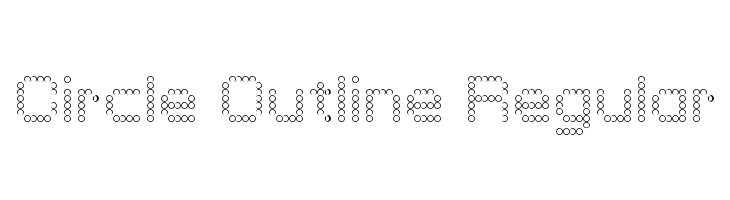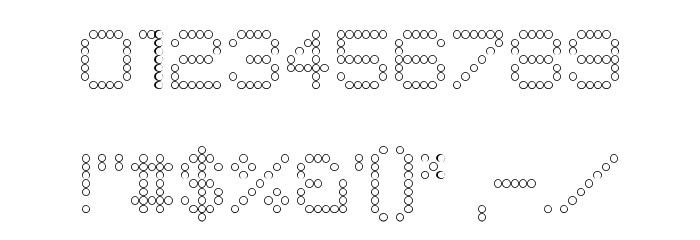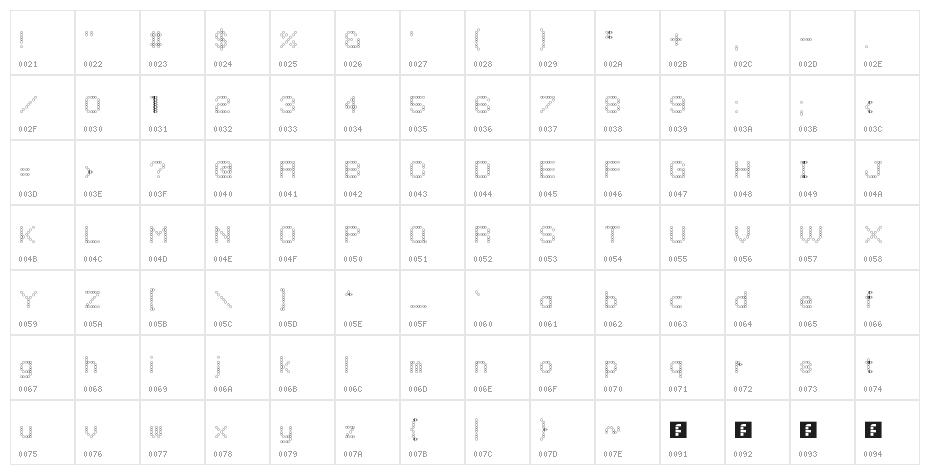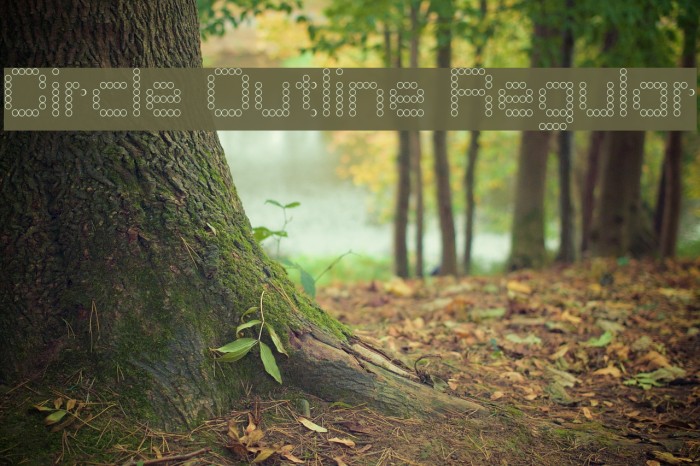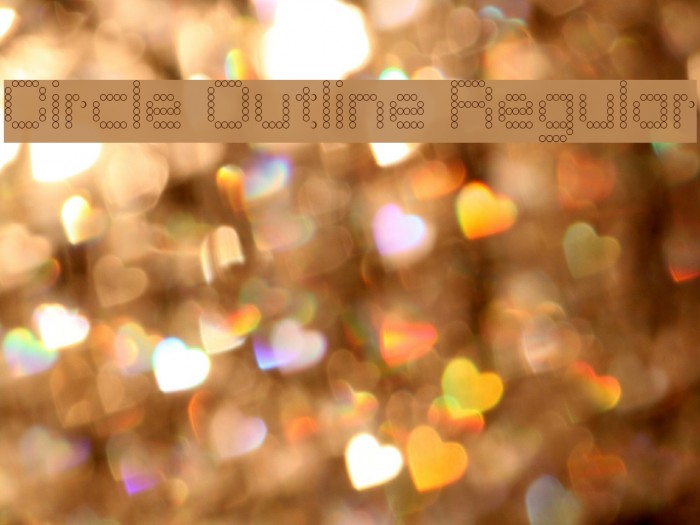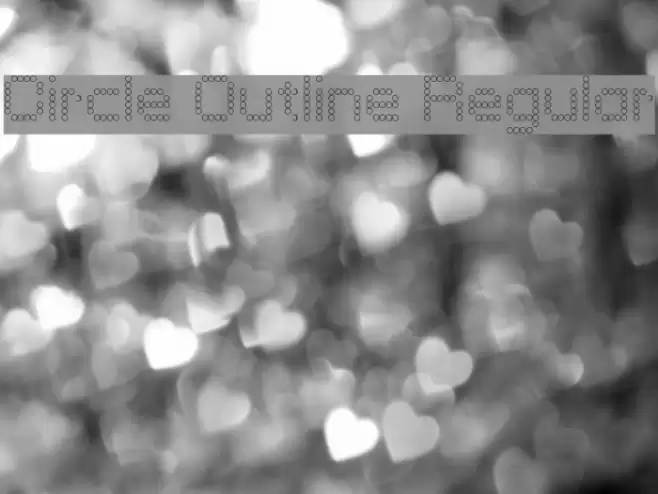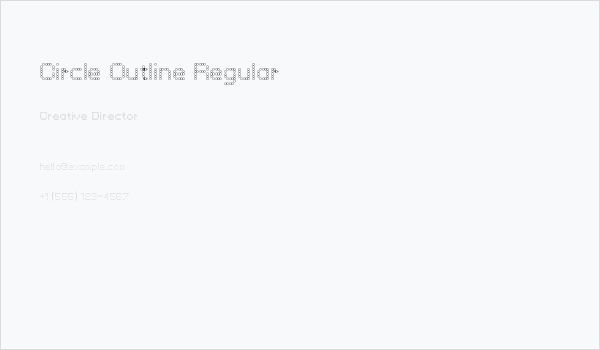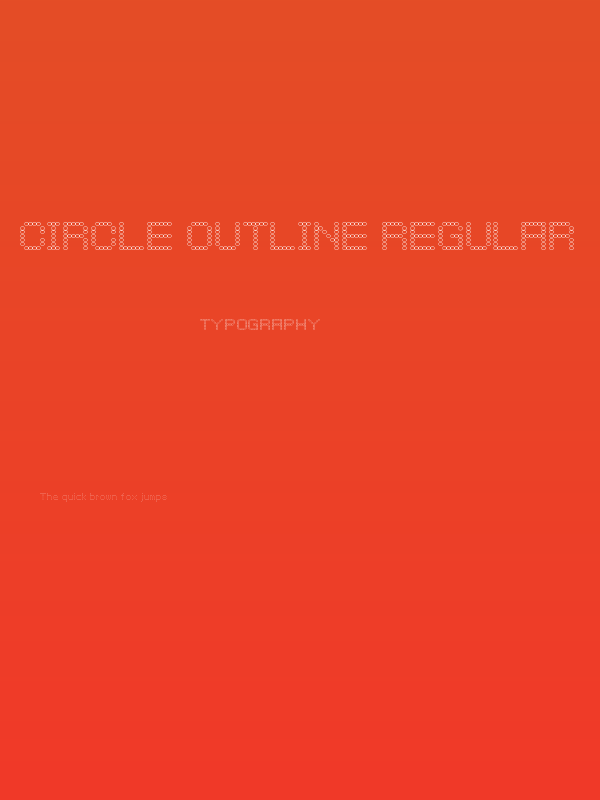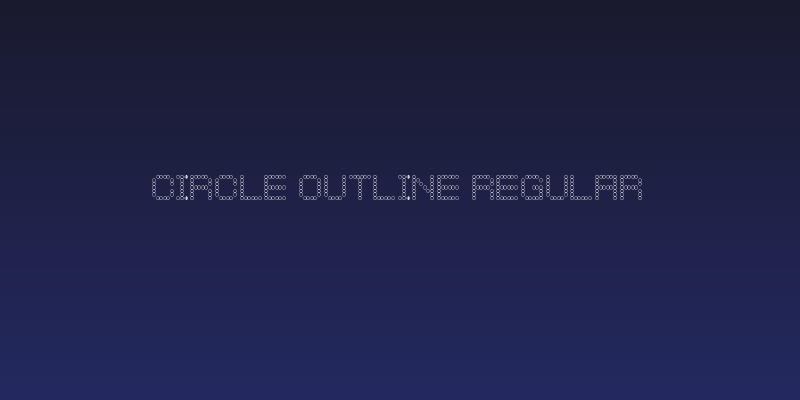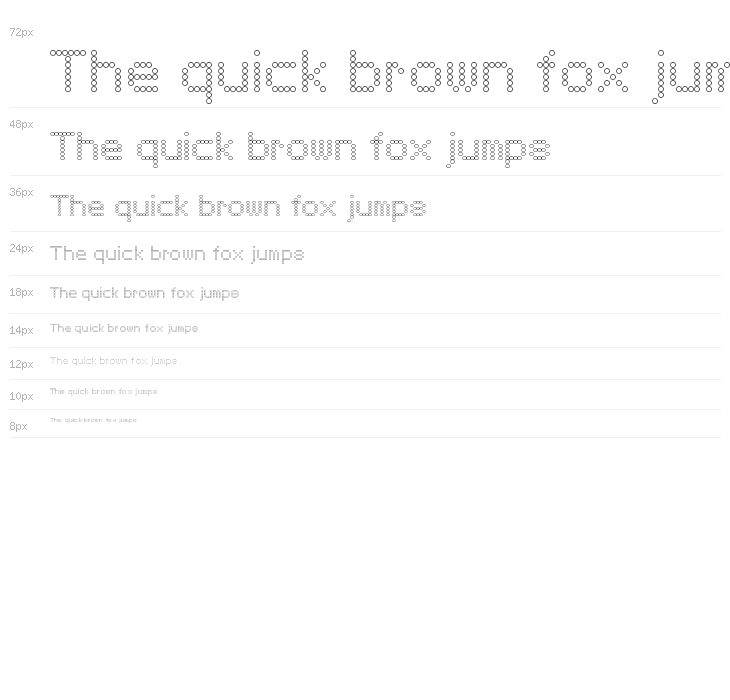
Circle Outline Regular Font
Circle Outline Regular Description
This font features a unique design where each character is constructed from a series of small, evenly spaced circles forming an outline. The geometric and modular nature of the font gives it a modern and digital feel, reminiscent of LED displays or dot matrix printers. The uniformity in the size and spacing of the circles creates a consistent and cohesive look across all characters. The uppercase and lowercase letters maintain the same structural style, ensuring readability while adding a playful and creative touch. Numbers and special characters are also designed with the same circular outline, making the font versatile for various applications. Its distinct appearance makes it stand out, ideal for projects that require a futuristic or tech-inspired aesthetic.
| Use Case | Headlines, Logos, Digital displays |
| Proposed Projects | Ideal for digital displays, tech-themed designs, posters, and creative branding projects. |